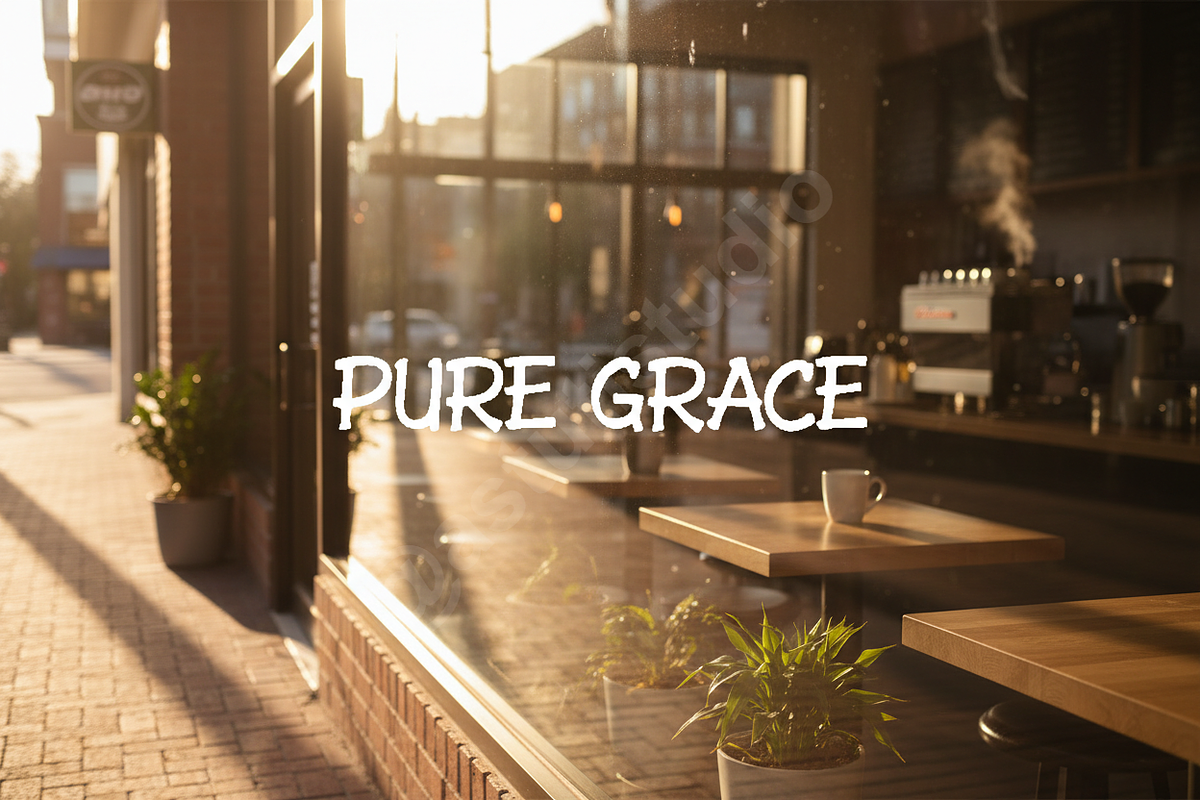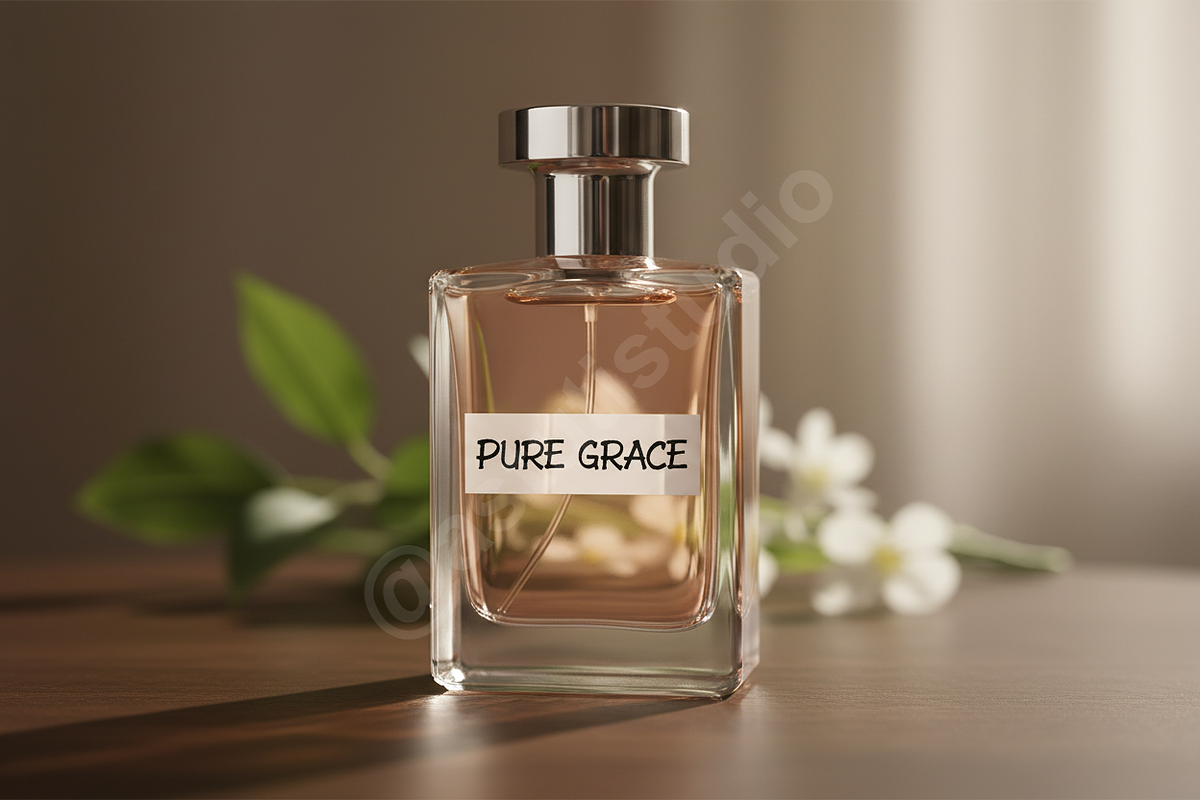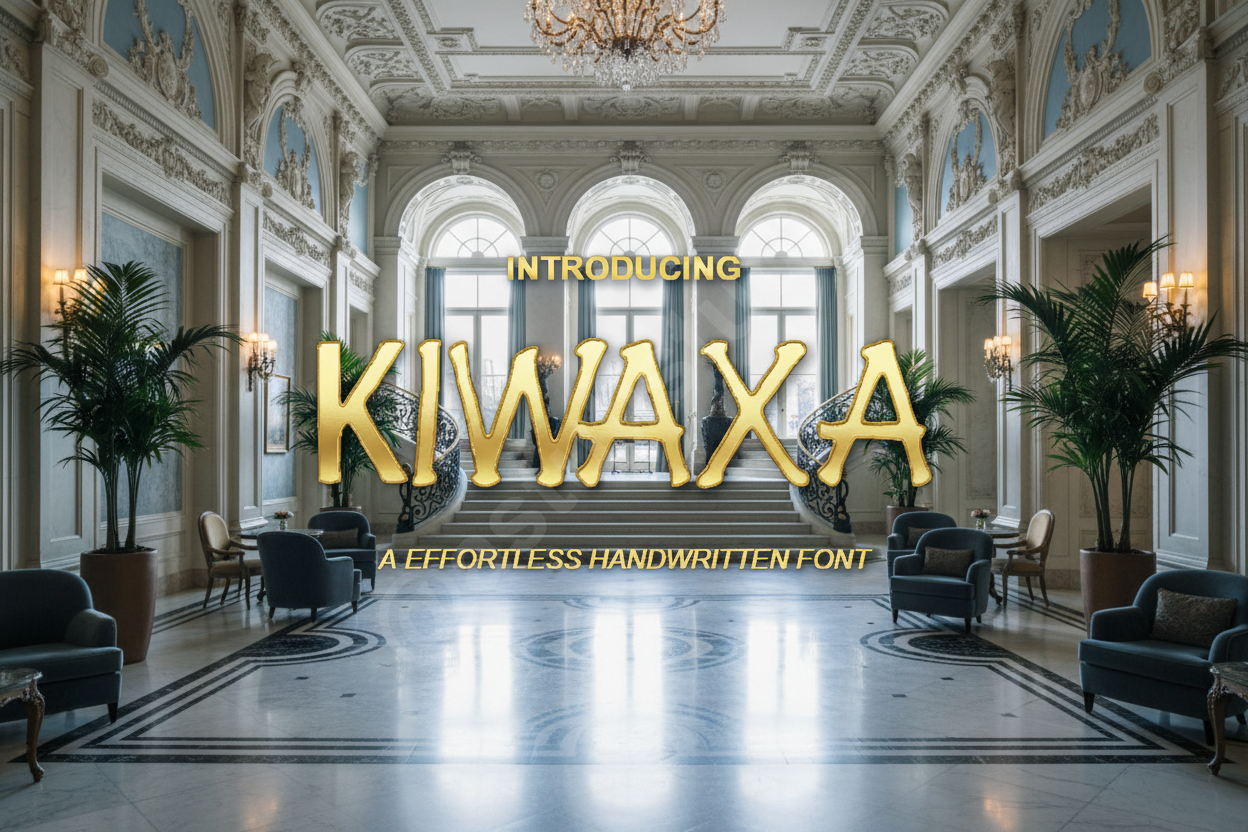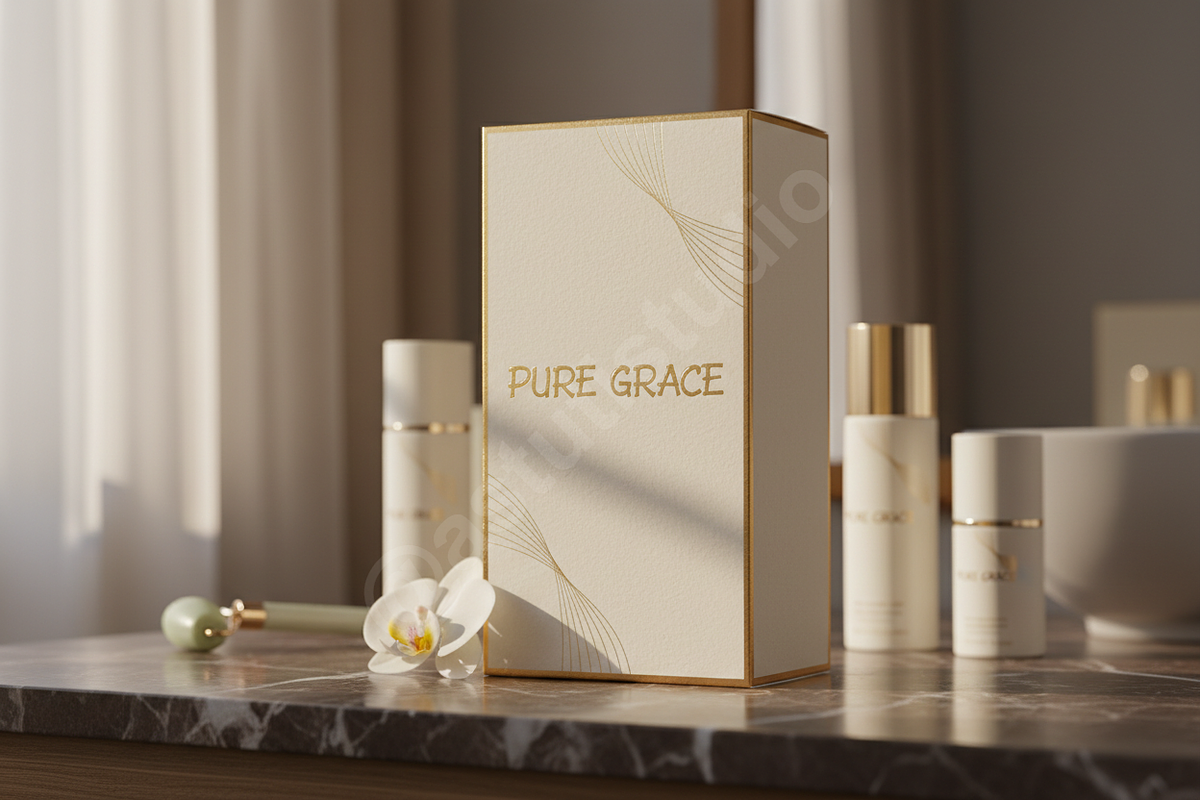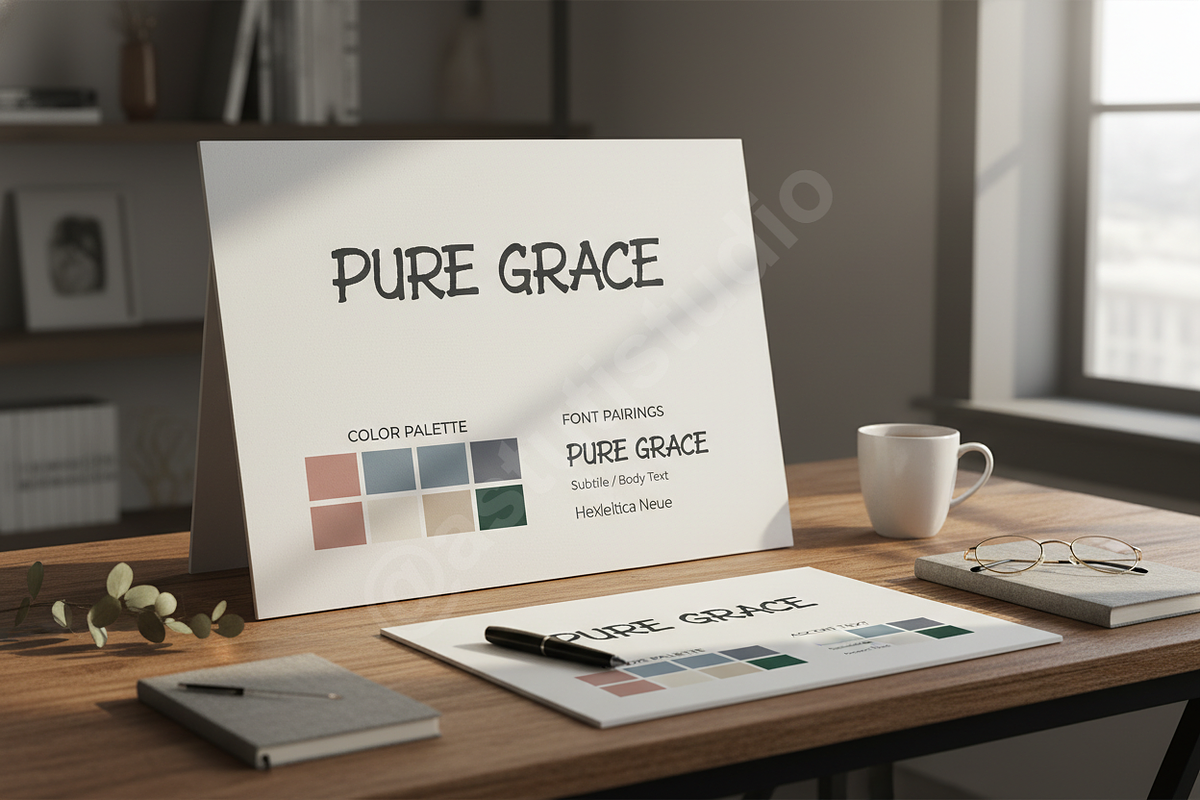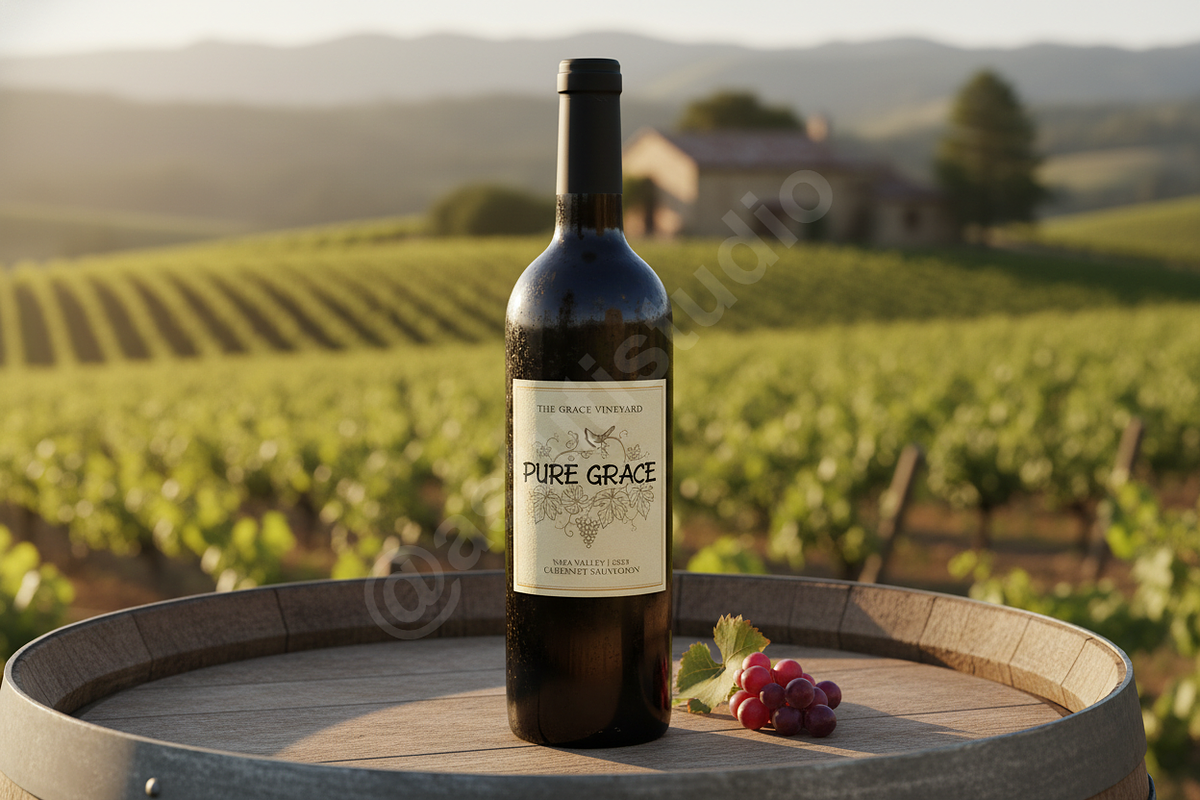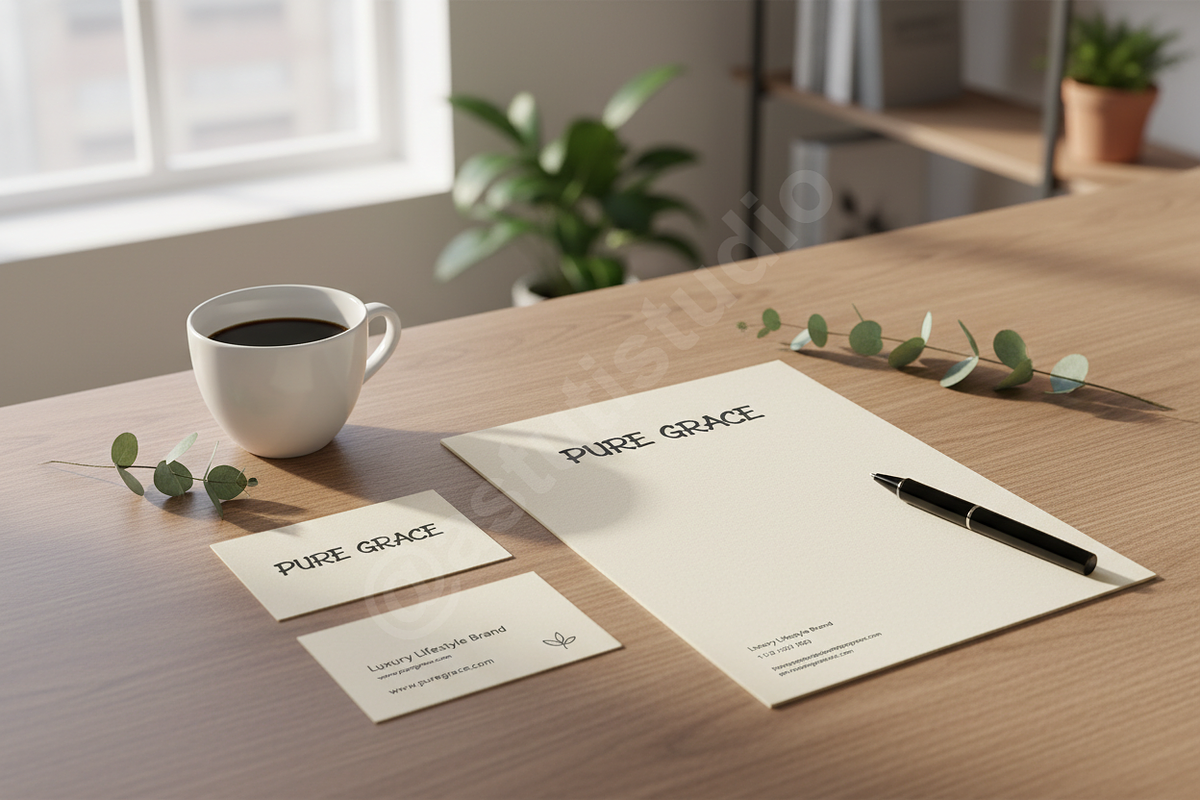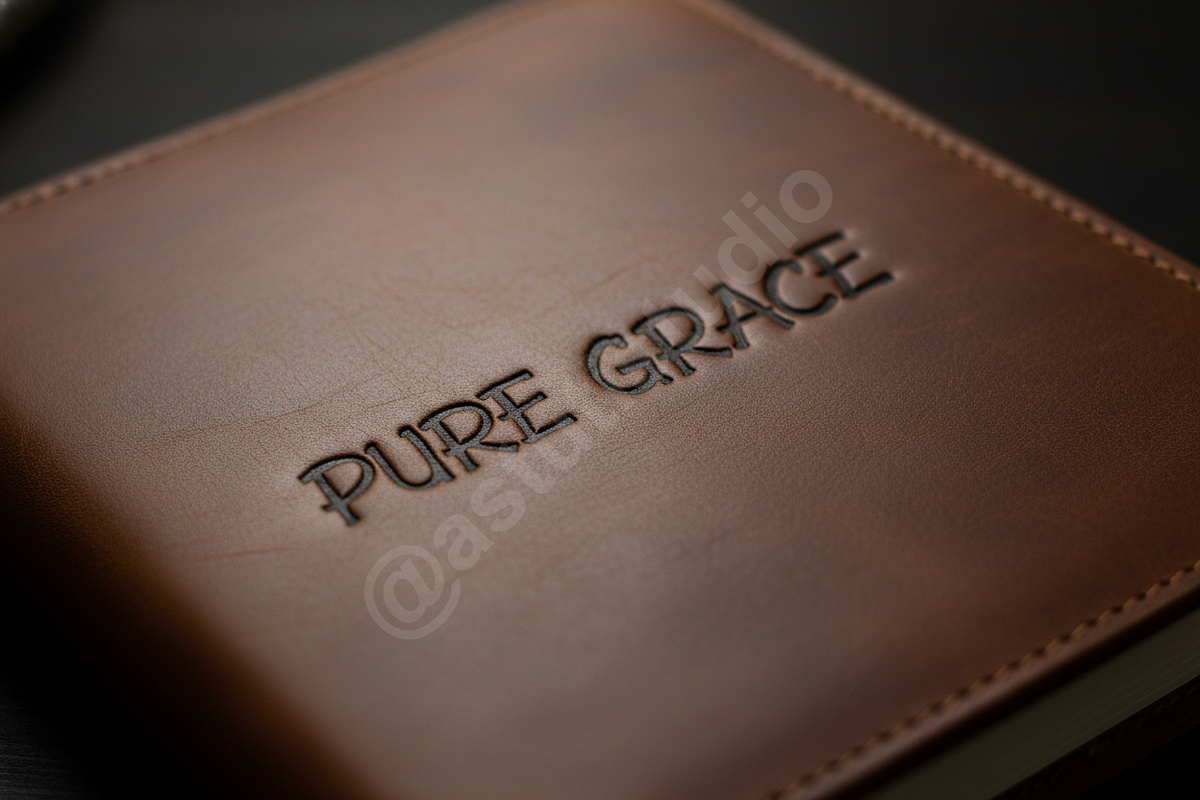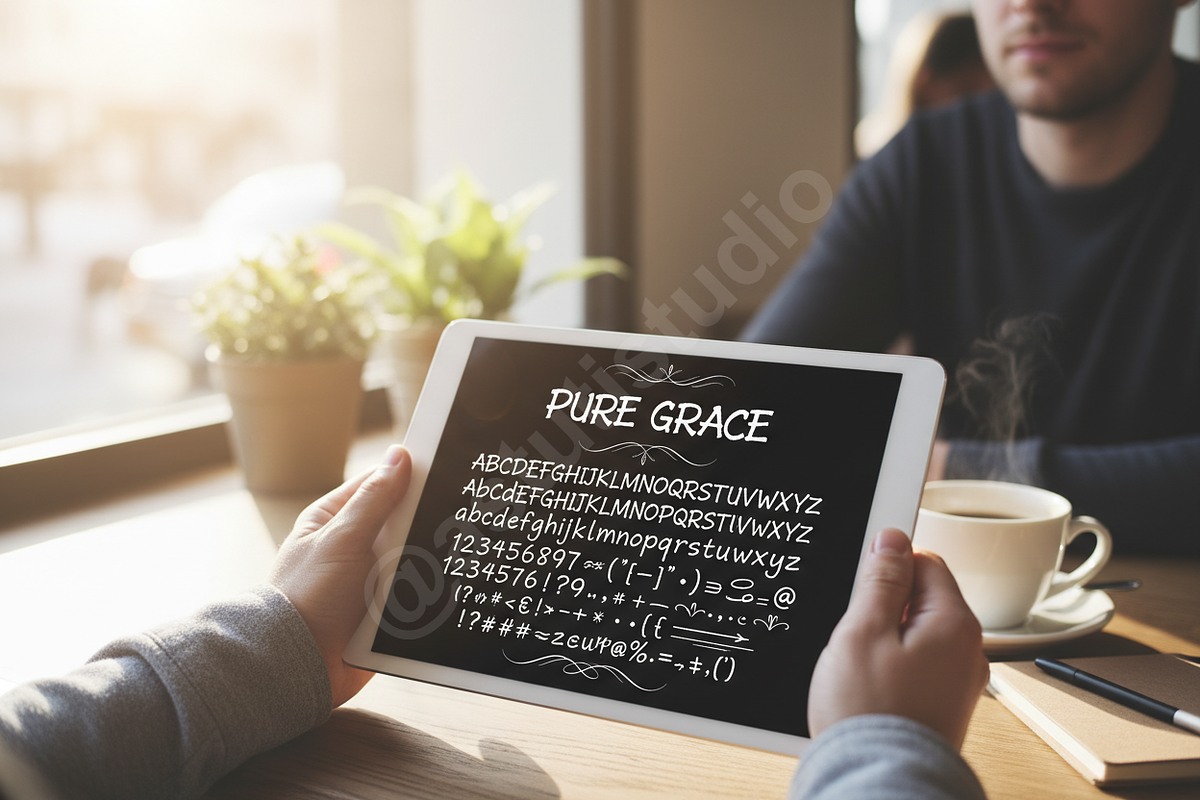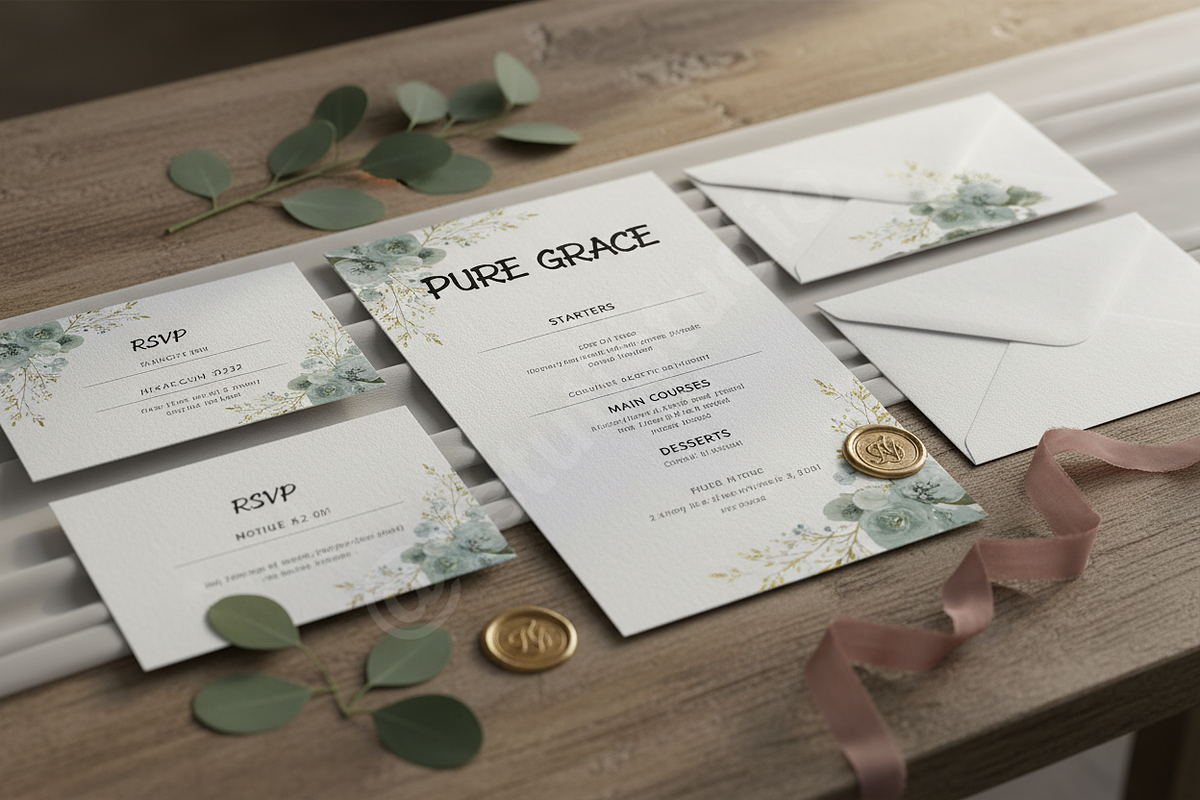
Kiwaxa | Elegant Serif Typeface
Introduction Kiwaxa is a premium serif typeface crafted for high-end aesthetics and timeless sophistication. With its refined strokes and balanced proportions, Kiwaxa brings an air of luxury to any project, making it the perfect choice for designers who value elegance and clarity. It is specifically designed to excel in luxury branding, high-fashion editorial layouts, and polished social media presence.
- Sophisticated high-contrast letterforms for a high-end feel
- Unique discretionary ligatures and stylistic alternates for custom flair
- Comprehensive multilingual support for global brand reach
- Precision kerning optimized for professional editorial design
- Versatile application across print and digital media
Elevate your visual identity with the timeless appeal of Kiwaxa.